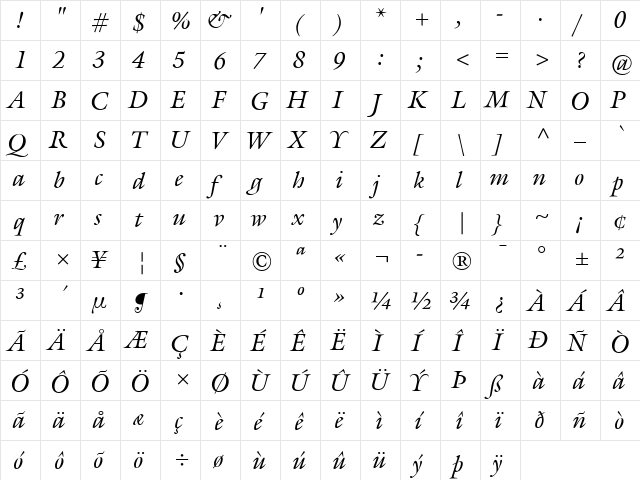
GalliardCC Regular
Design Context for GalliardCC Typeface
GalliardCC is a composed and adaptable typeface that performs quietly and consistently across a wide range of design contexts.